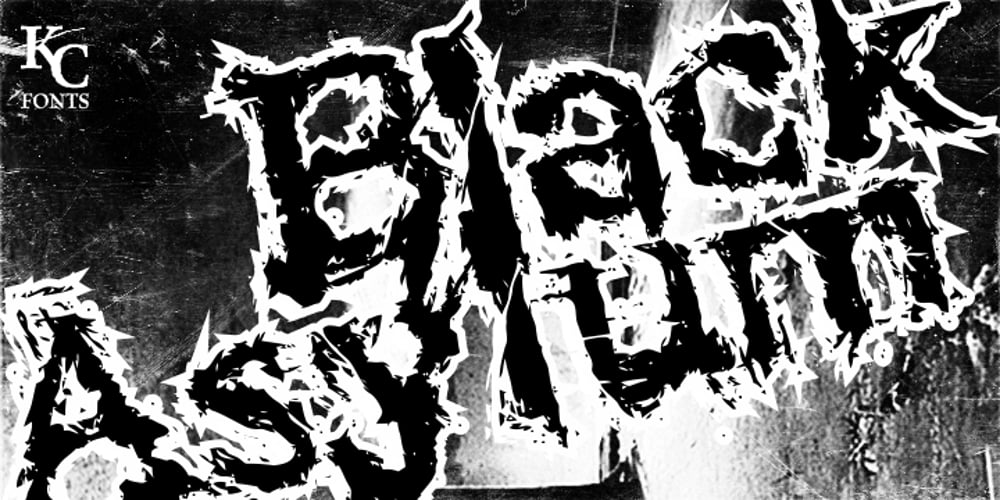
Black Asylum Font Family was designed by Kevin Christopher and published by KC Fonts. Black Asylum contains 4 styles and family package options. Black Asylum from KC Fonts is a handmade font that’s inspired by the title names of slasher horror movies of the 70’s and 80’s. Nothing else resembles it in the slightest, as it’s a font that demands respect, it’s a font that instills fear from deep within & it’s perfect for all of your horror needs! Black Asylum has an extended character set for multilingual support to scare the pants off of everyone worldwide!